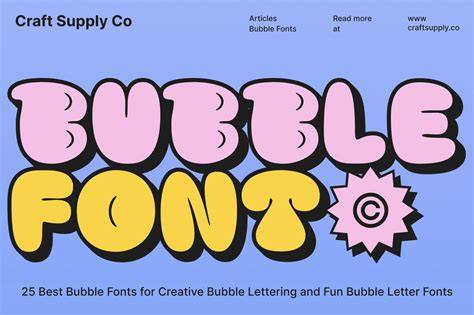
Create Stunning Text with Bubble Font Generator
Readers, have you ever wanted to add a playful and eye-catching touch to your text? Perhaps you're creating a social media post, designing a website, or simply want to express your creativity in a unique way. Bubble font generators can be your secret weapon! They allow you to transform ordinary text into fun, bubbly, and visually appealing lettering. But with so many tools to choose from, how do you find the perfect one to create stunning text that truly stands out? I've spent countless hours researching and analyzing bubble font generators, and I'm excited to share my insights with you.
What are Bubble Font Generators?
Imagine transforming standard text into a whimsical and playful font reminiscent of comic book speech bubbles. This is what bubble font generators excel at! They are online tools that allow you to convert your text into bubbly, rounded letters that add a touch of charm and personality to your projects. While a traditional sans-serif font might seem bland, a bubble font generator can inject energy and flair into your designs, making them more visually appealing and engaging.
These tools are incredibly versatile and can be used for a wide range of purposes, including:
- Adding a touch of whimsy to social media posts
- Designing eye-catching website headers
- Creating personalized invitations and greetings
- Adding charm and personality to presentations
- Enhancing graphic design elements
Whether you're a casual user looking to spice up your social media posts or a professional designer seeking unique fonts, bubble font generators offer a wealth of creative possibilities.
How do Bubble Font Generators Work?
The magic behind bubble font generators lies in their ability to manipulate the shape of letterforms. Instead of relying on traditional straight lines and sharp angles, they use curves and rounded shapes to create the iconic bubble effect. This transformation process typically involves a few key steps:
- Input: You begin by entering your desired text into the generator's text box.
- Conversion: The generator then applies its algorithms to convert each letter into a bubbly shape, maintaining readability while adding a playful aesthetic.
- Output: Finally, the generator presents you with the transformed text, ready to be copied, downloaded, or used in your creative projects.
Behind the scenes, these generators often utilize sophisticated font libraries or custom algorithms to achieve the smooth, consistent bubble effect. Some generators even allow you to customize the level of roundness, thickness, and other stylistic parameters, giving you even greater control over the final look of your text.
Why Choose Bubble Font Generators?
In a world saturated with traditional fonts, bubble font generators stand out as a unique and creative option. Here are some compelling reasons to explore the world of bubbly lettering:
- Playful and Engaging: Bubble fonts instantly inject a sense of playfulness and lightheartedness into any design, making it more engaging and appealing to viewers.
- Visual Appeal: The rounded shapes and smooth curves create a softer, more inviting visual experience, enhancing the overall aesthetic of your designs.
- Uniqueness: Bubble fonts offer a distinct and unconventional style that can help your designs stand out from the crowd.
- Versatility: From website headers to social media graphics, bubble fonts can be used in a variety of creative projects and applications.
- Accessibility: Most bubble font generators are free to use, making them accessible to everyone, even those on a budget.
By embracing the power of bubble font generators, you can unlock a world of creative possibilities and add a touch of playful charm to your designs.
The Best Bubble Font Generators on the Market
With so many choices available, finding the perfect bubble font generator can feel overwhelming. To help you narrow down your search, I've compiled a list of some of the most popular and highly-rated generators in the market:
Font Meme
Font Meme is a popular online resource for exploring and using a vast library of fonts. Their bubble font generator offers a wide selection of styles and allows you to preview your text in different variations before committing to a final design. One of the best features is the ability to download the generated font file, giving you full control over its application in various design programs.
Cool Text
Cool Text is a treasure trove of creative text generators, including a dedicated section for bubble fonts. This user-friendly tool lets you customize the font style, color, and size to create stunning visuals. The website's intuitive interface makes it easy to experiment with different options and find the perfect bubble font for your project.
Dafont
Dafont is a renowned font website that boasts a vast collection of free and premium fonts. While their bubble font selection might not be as extensive as some other generators, they offer unique and high-quality options. The website's user-friendly interface and detailed font descriptions make it easy to find the perfect bubble font that aligns with your design vision.
In a world of traditional fonts, bubble font generators offer a refreshing and unique approach to creating stunning text. By leveraging their capacity for playful aesthetic and creative expression, you can add a touch of whimsy to your designs, boosting engagement and leaving a lasting impression on your audience. So, step outside the box and explore the world of bubble fonts; you might be surprised at the creative possibilities that unfold. Don't forget to check out our other articles on AI and SEO content for even more tips and tricks on creating engaging and effective online content!